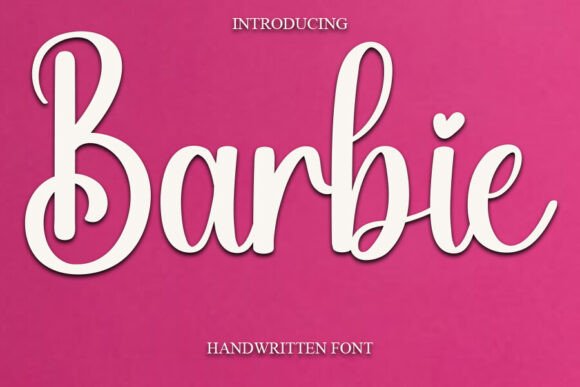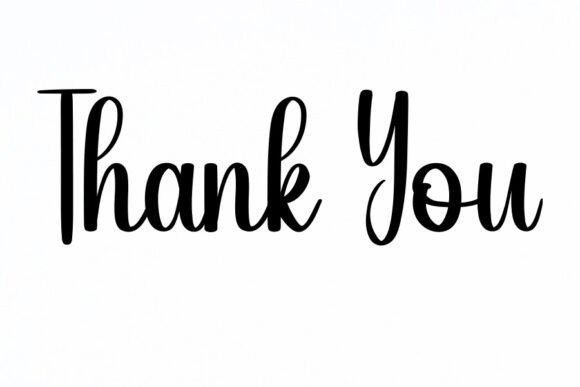
Barbie Font
Barbie is a simple handwritten font. This versatile font has a wide spectrum of applications ranging from greeting cards to headlines and is guaranteed to add a simple and natural feel to your next project!